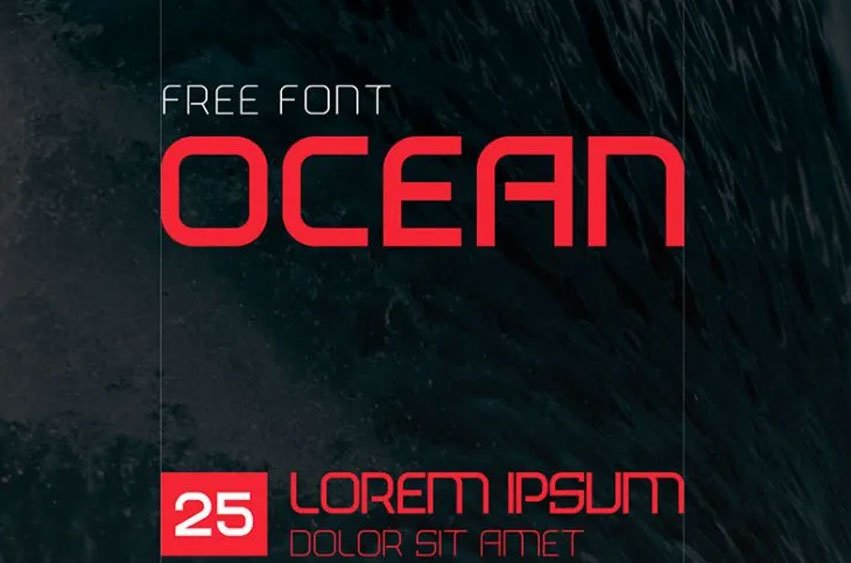
Ocean Sans Font Typeface is a simple sans serif font with 4 styles. It is created and distributed by Serdar Öztürk. It is ideal as a headline, logotype, signboard, advertisement design, magazine layout, logo design for invitations and texts on posters or notices.
It can even be used to create name cards and web layouts together with headers in business branding projects for weddings social media product designs stationery etc.